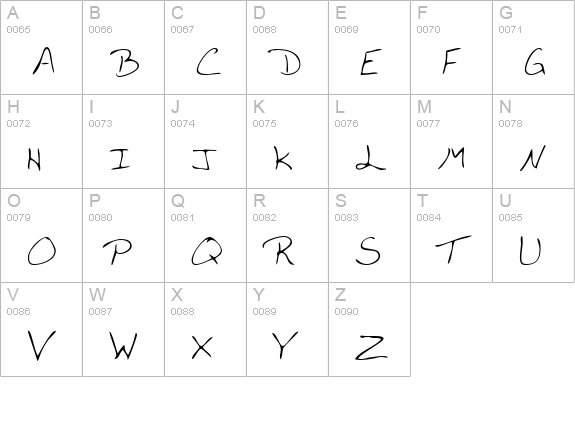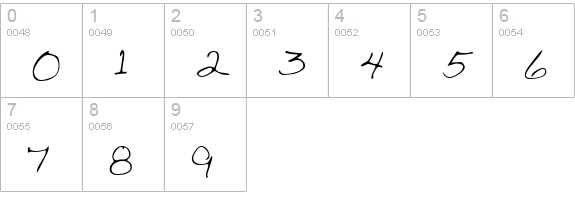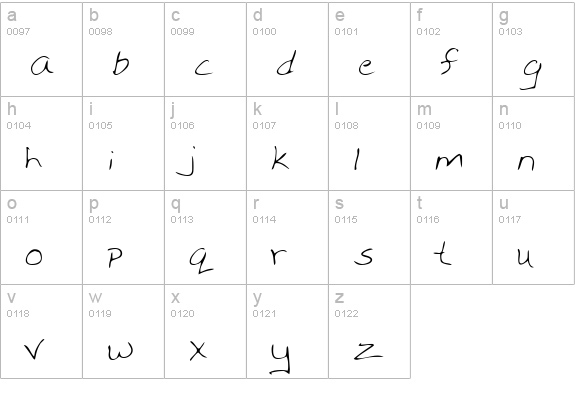
MonicasHand Font Details
MonicasHand font is a charming and elegant script typeface that exudes a sense of creativity and warmth. Its flowing strokes and handcrafted feel make it perfect for adding a personal touch to your design projects. Whether you're creating invitations, branding materials, or social media graphics, MonicasHand font will bring a unique and stylish flair to your work. What sets MonicasHand font apart is not only its beauty but also its accessibility. This exquisite font is available for free download at FontsMarket.com, making it easy for designers and creatives to incorporate its graceful charm into their projects without any cost. Embrace the beauty of MonicasHand font and elevate your designs with its timeless appeal.